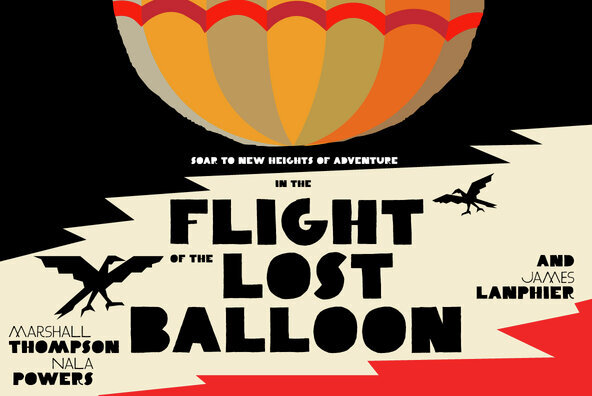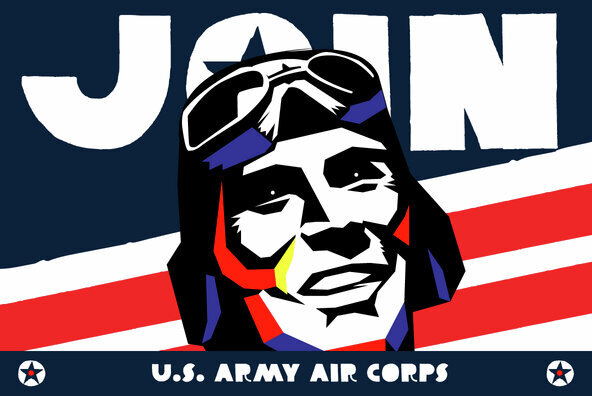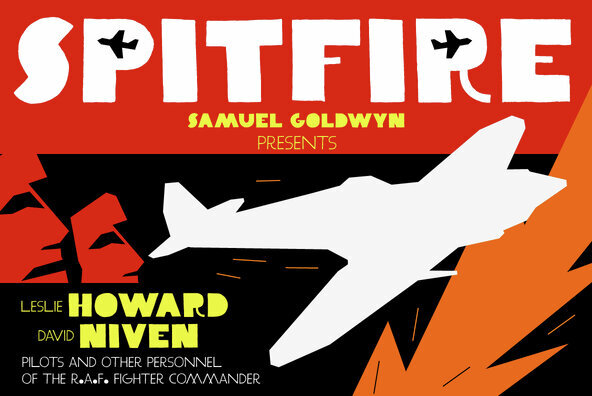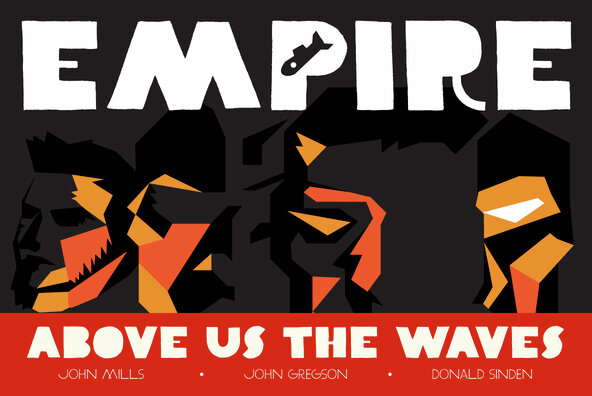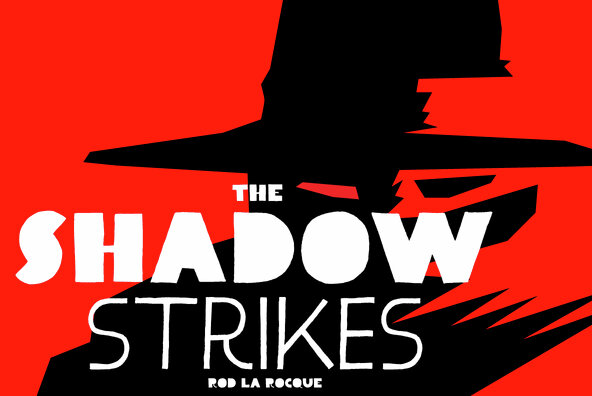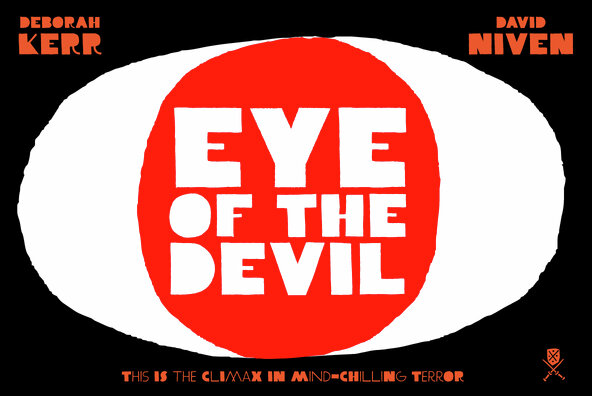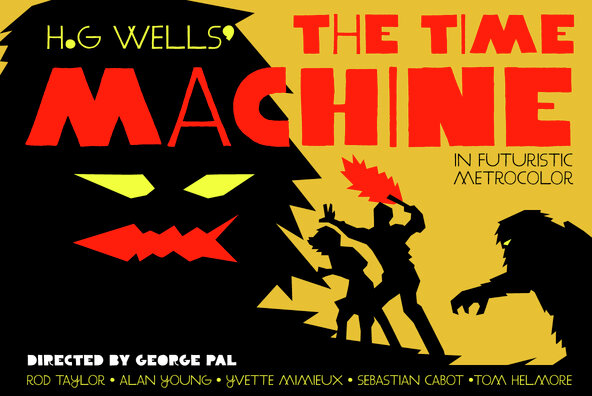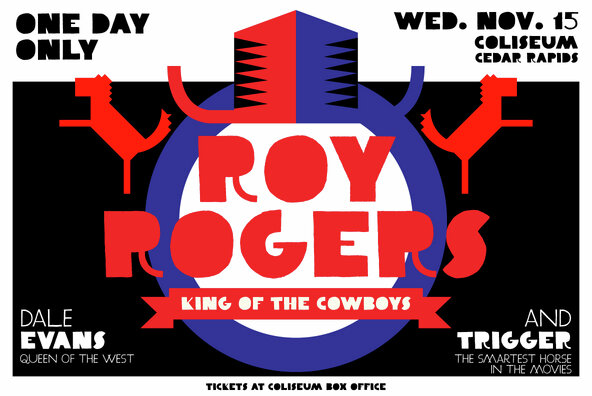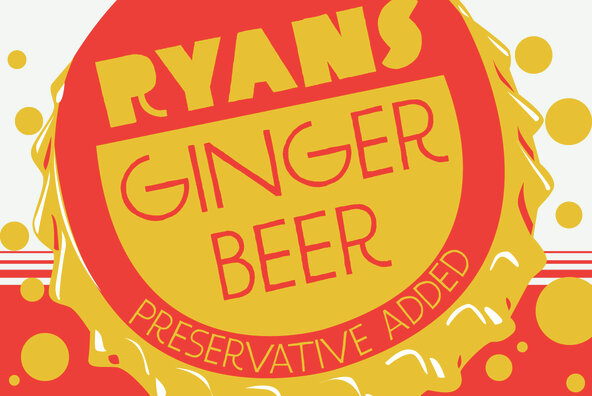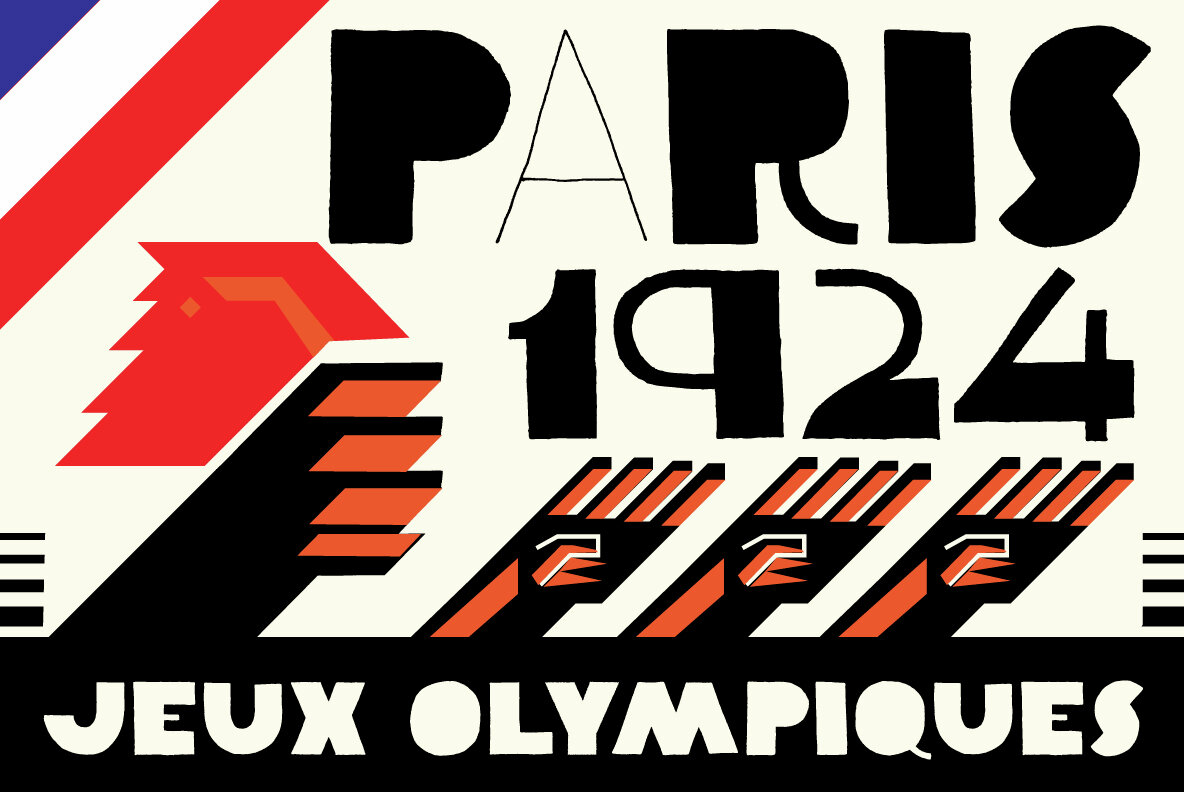
YWFT Clairemy
The smell of ink is redolent in the air, as the resistance printers screen propaganda deep in a basement in the French Quarter. The Absinthe is flowing, and there's static on the radio, as YWFT Clairemy makes its proud and vibrant presence known. Hand-drawn in the night air with a DC-3 propeller blade, YWFT Clairemy is 327 glyphs of pure, Bistromathic glory, and contains OpenType alternates that would make DeGaulle perm his moustache. Cue the trumpets.